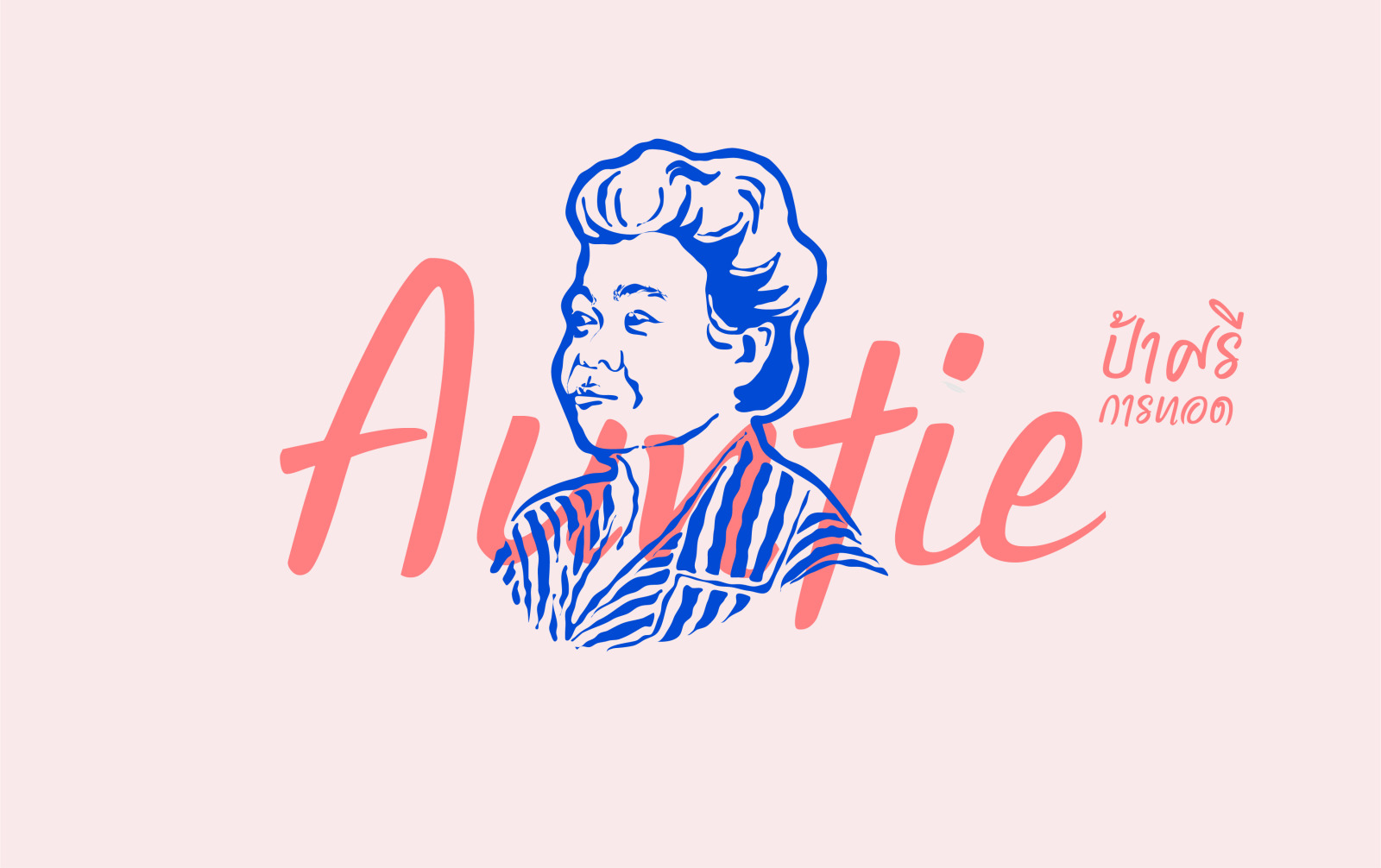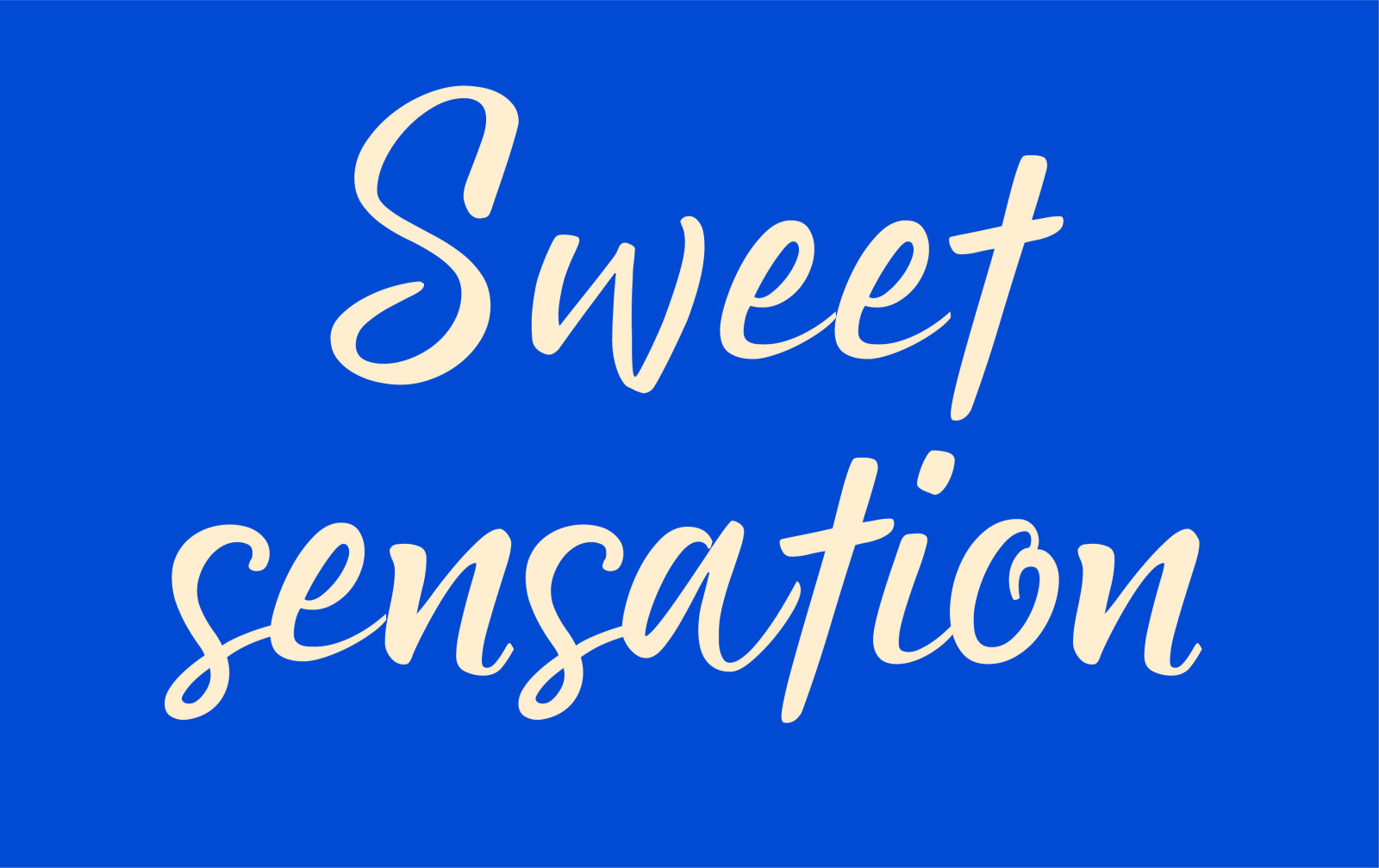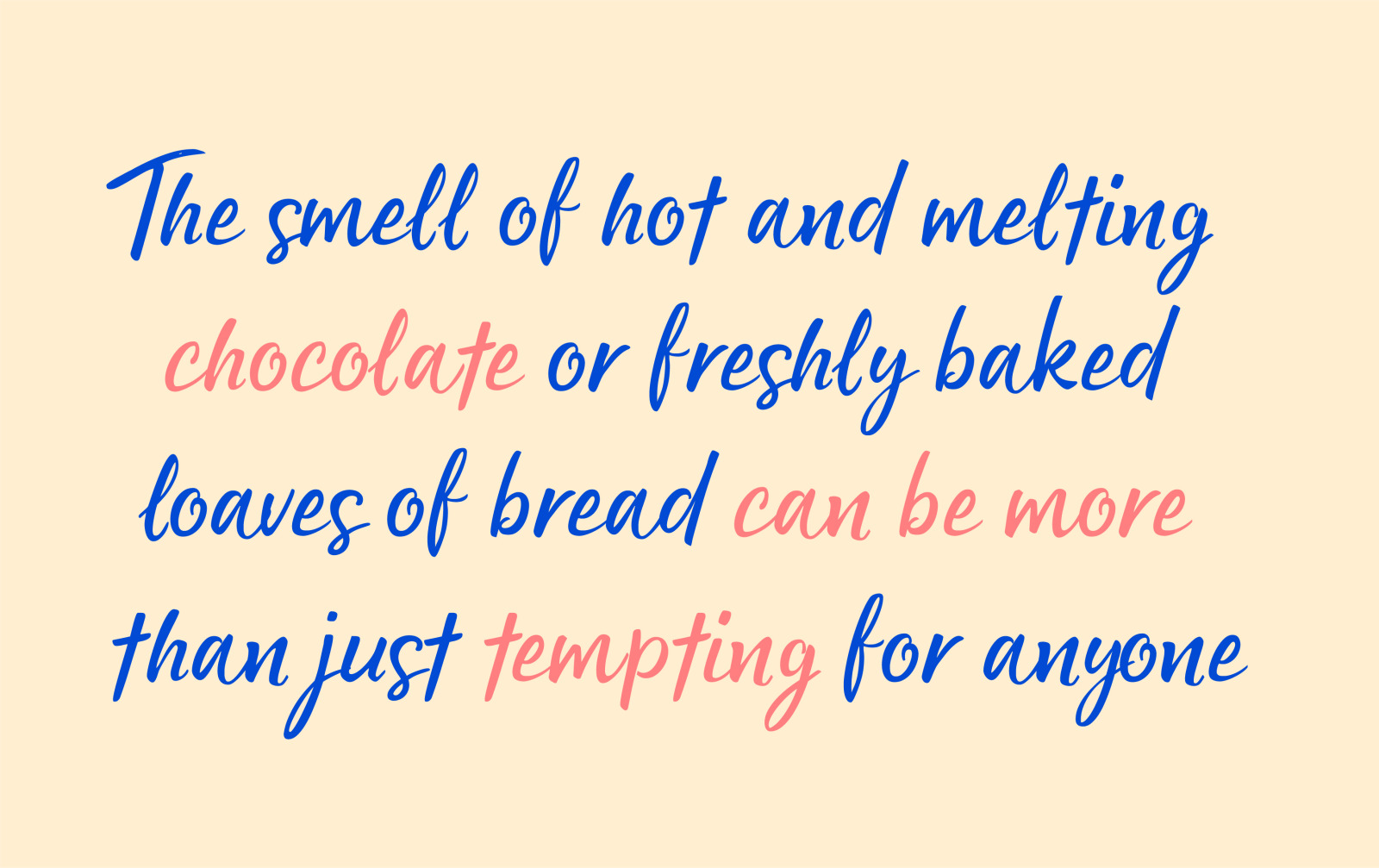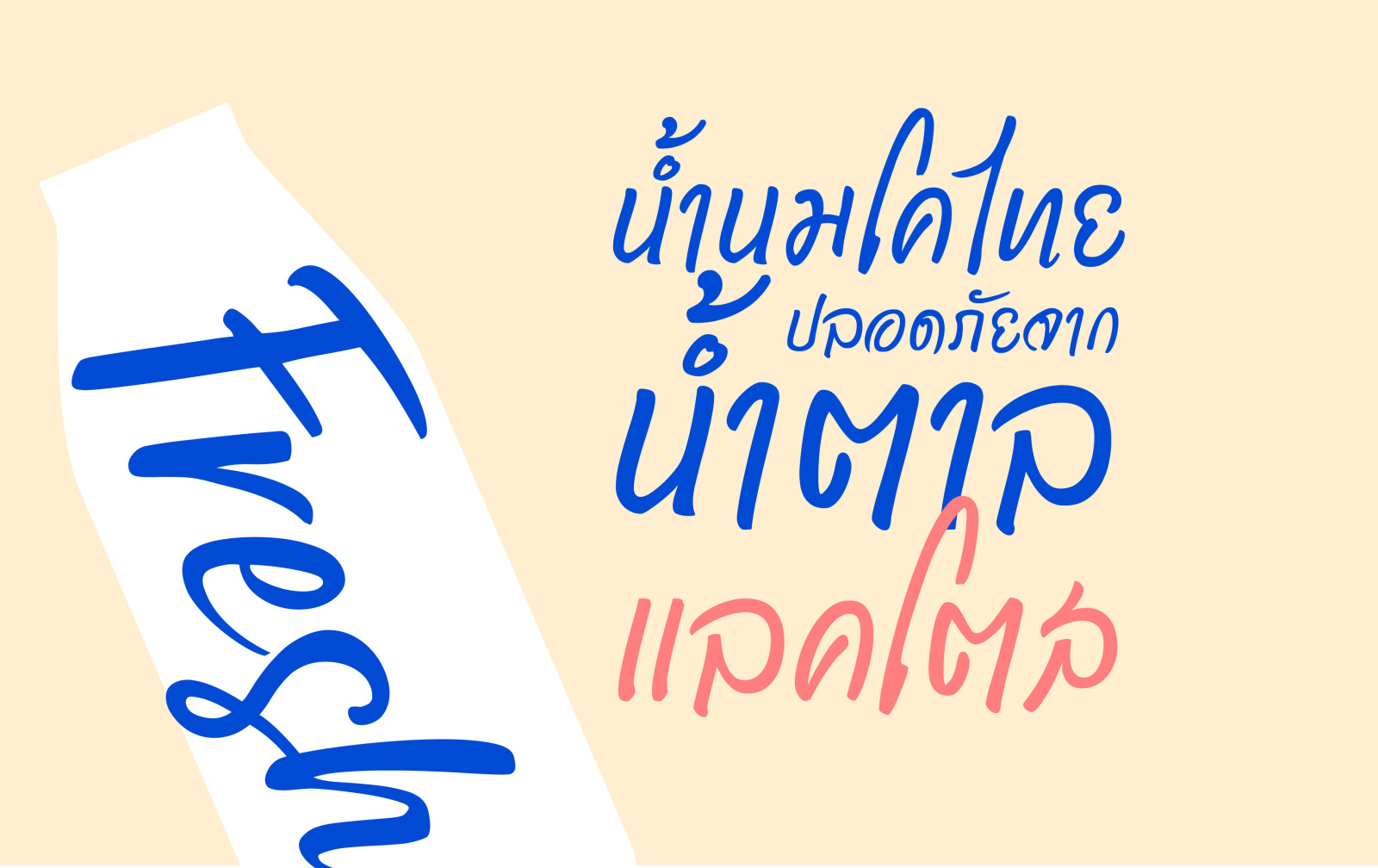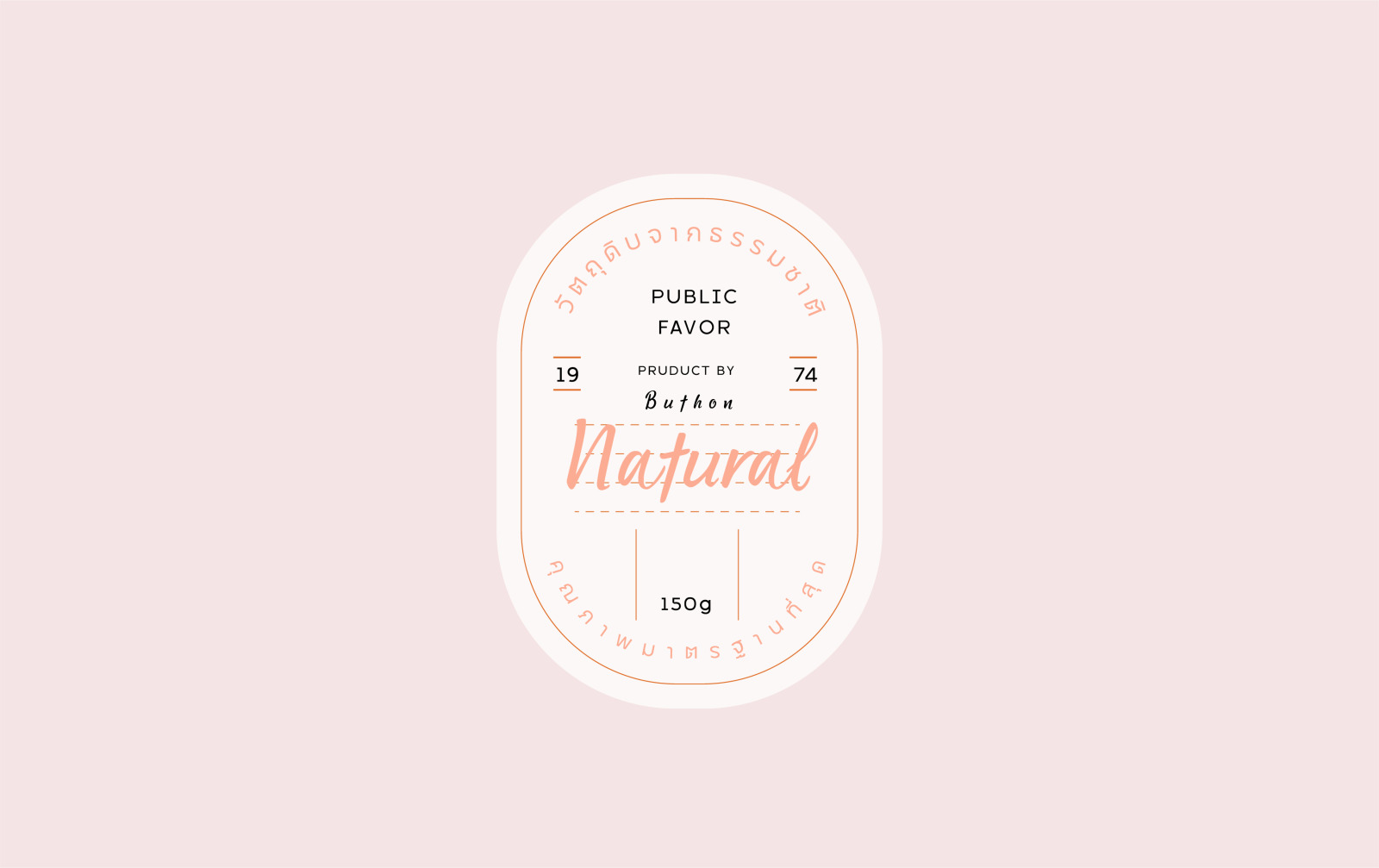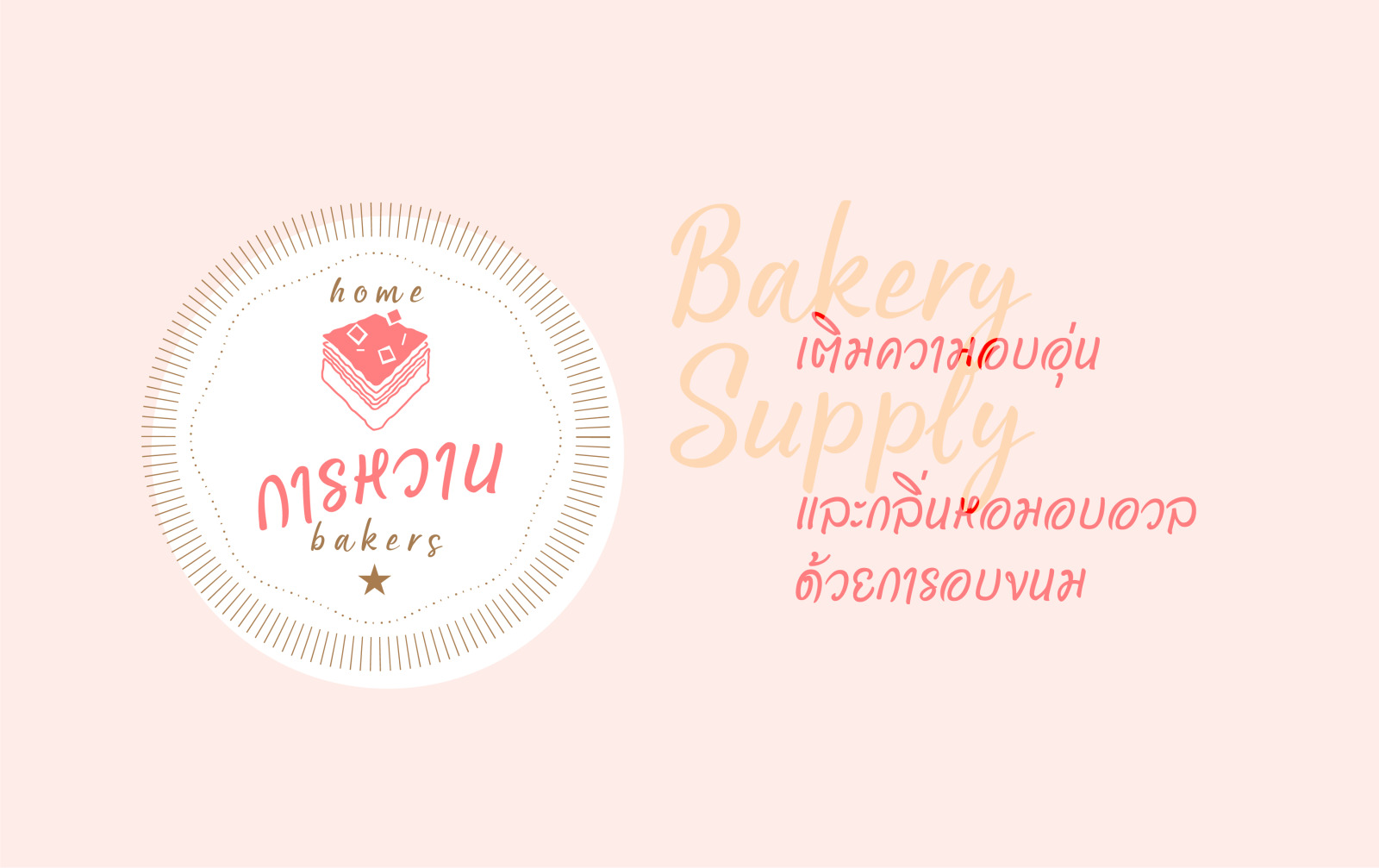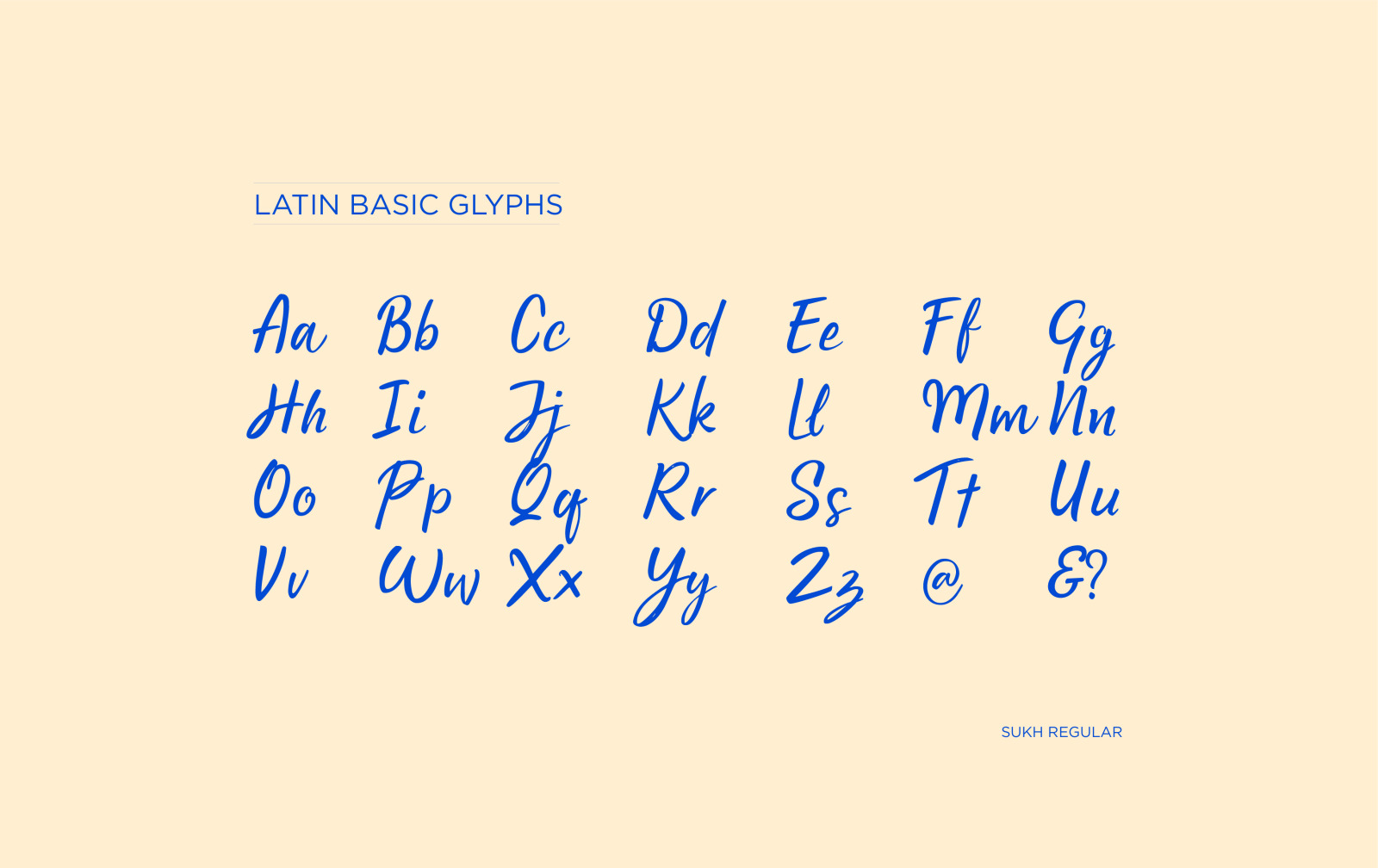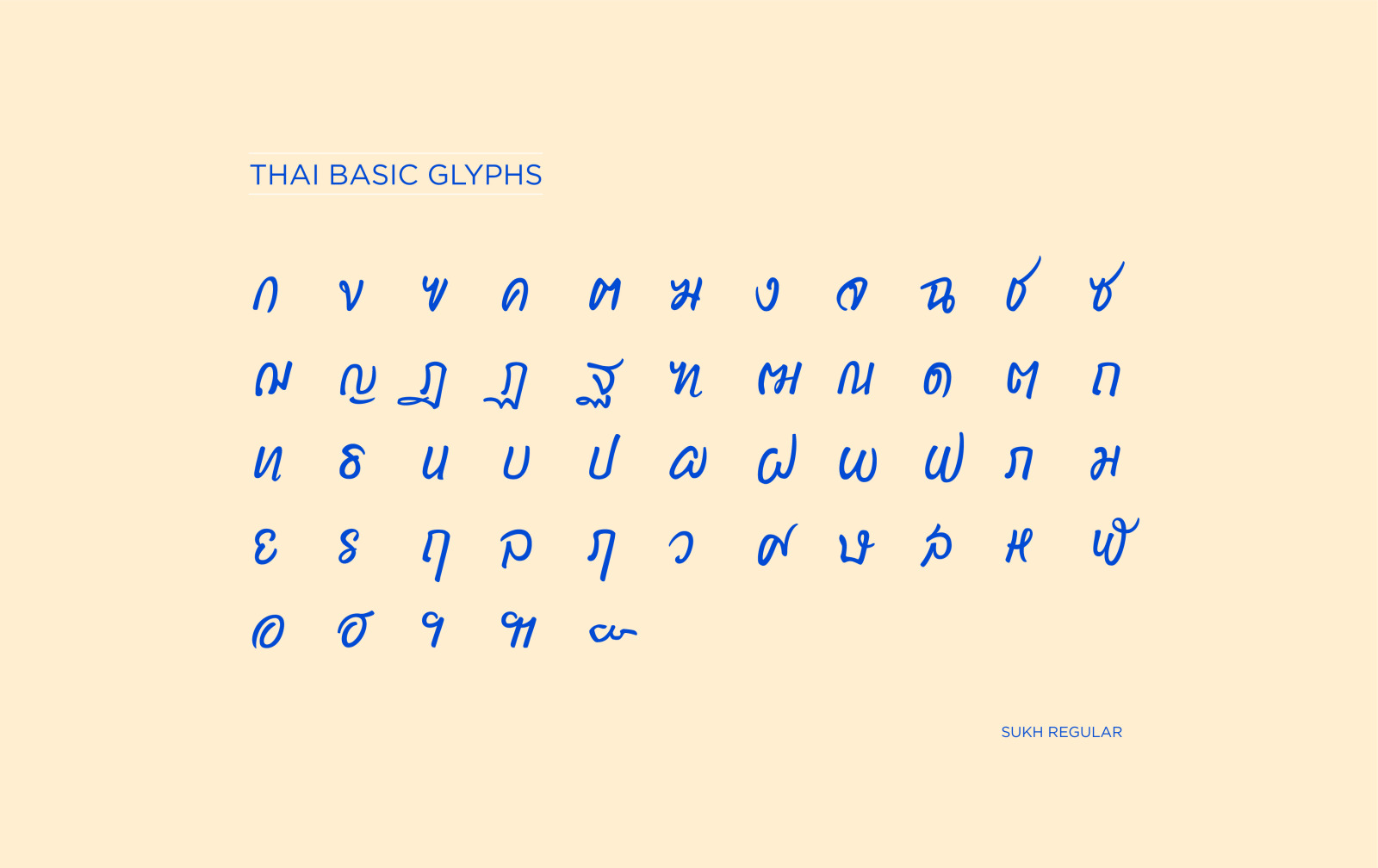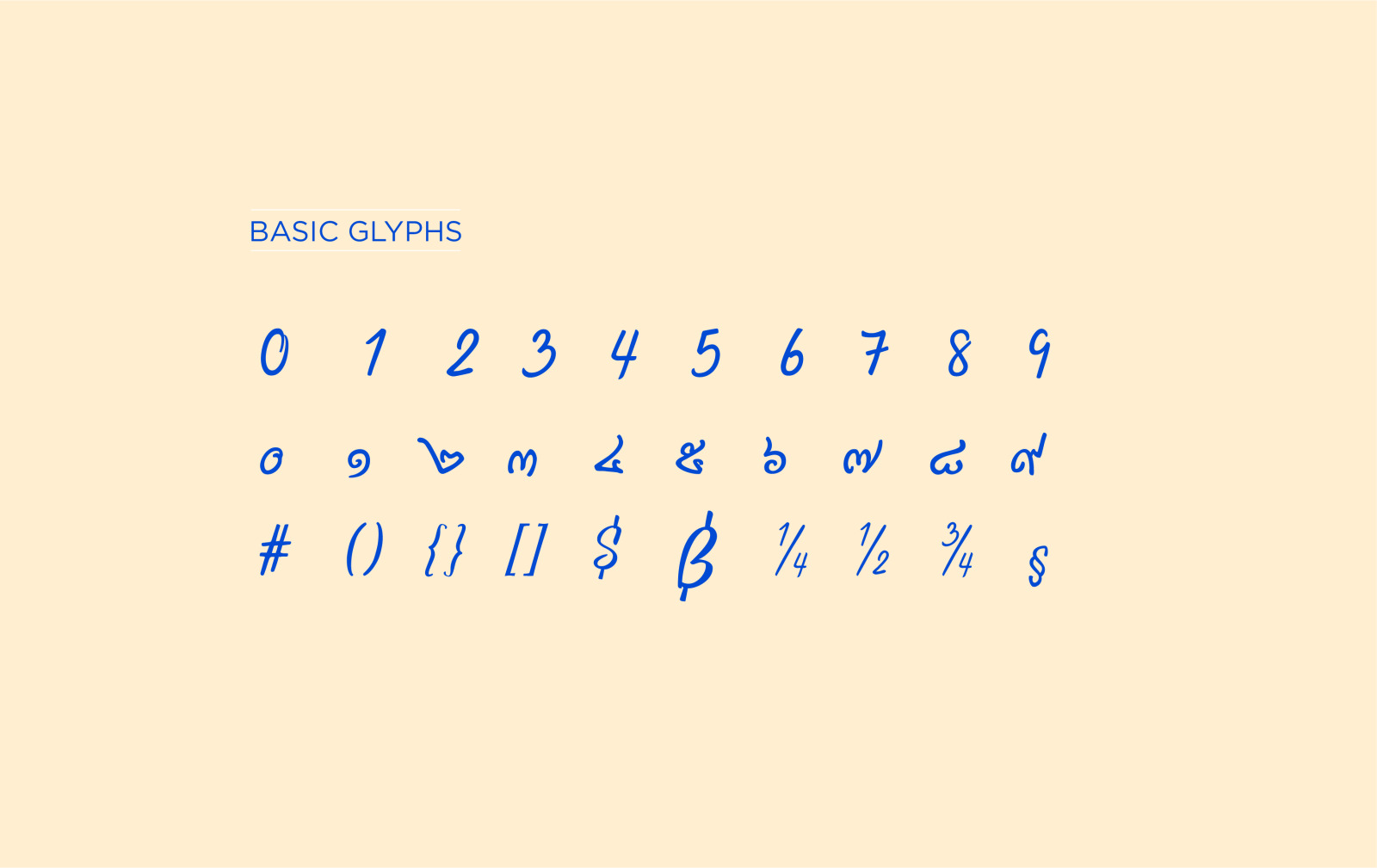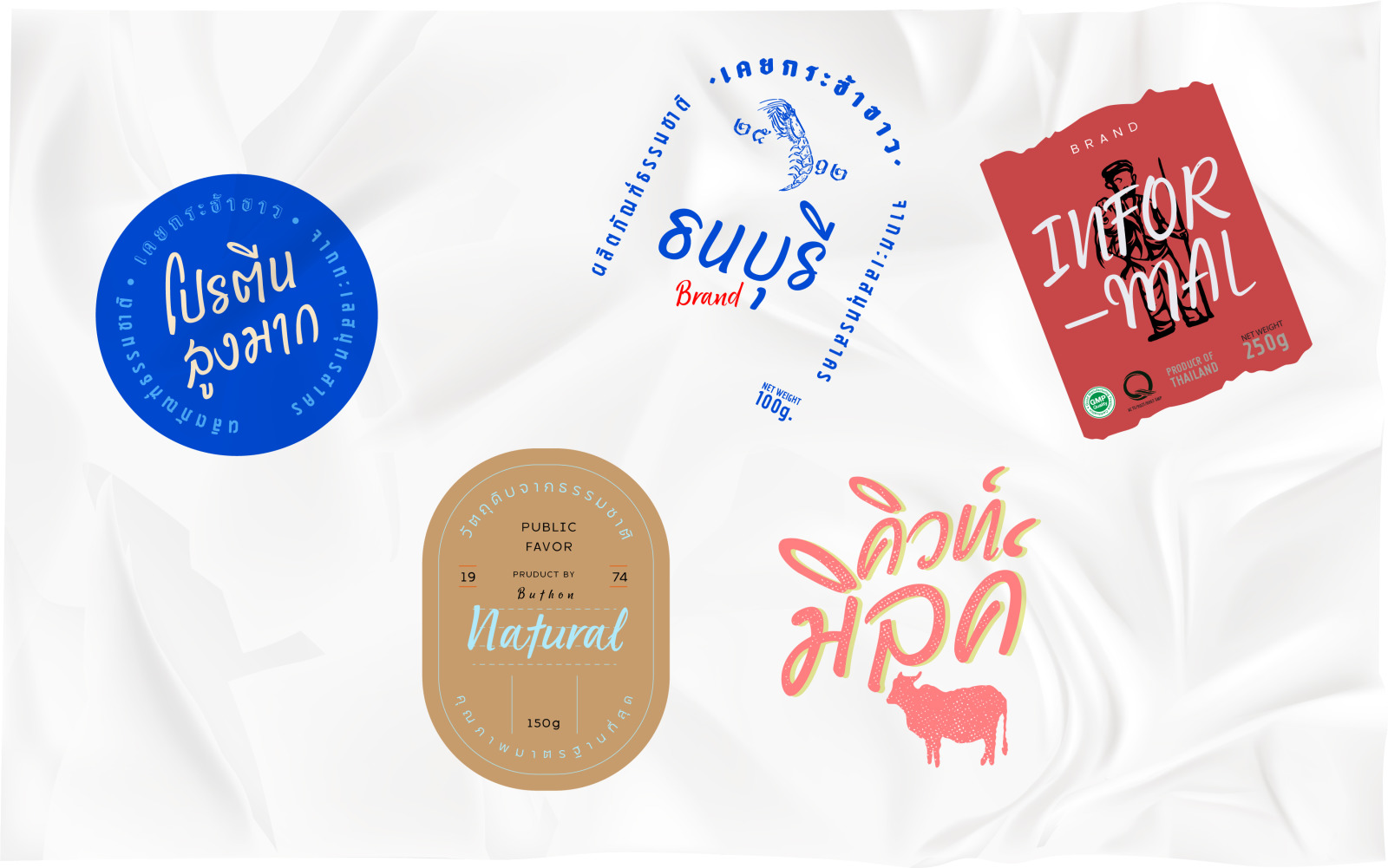
CUTE SCRIPT FONT
Cute Script Font, a new modern handwritten font. It brings beautiful and modern typeface, it has short ascenders and descenders. This font is suitable for your design project, especially for branding and lettering. What's include in this package: This font is suitable to use as a logo & branding, photography, watermark, social media posts, advertisements, invitation, product designs, label, product packaging, or anything that needs handwriting taste.